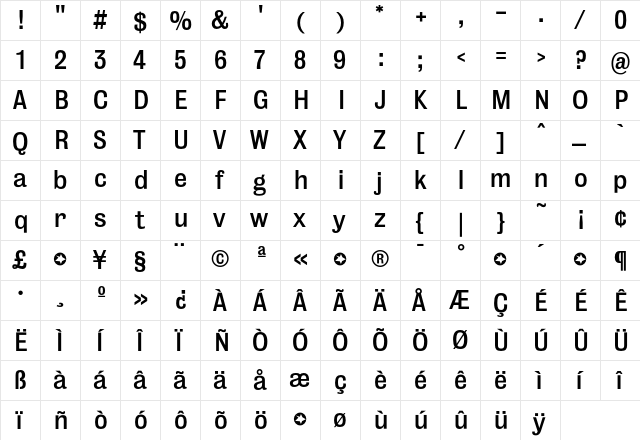
BureauGrotFiveThree Regular
Design Context for BureauGrotFiveThree Typeface
BureauGrotFiveThree offers clean, dependable letterforms without strong stylistic allegiance, making it a practical choice for designers who need flexibility.